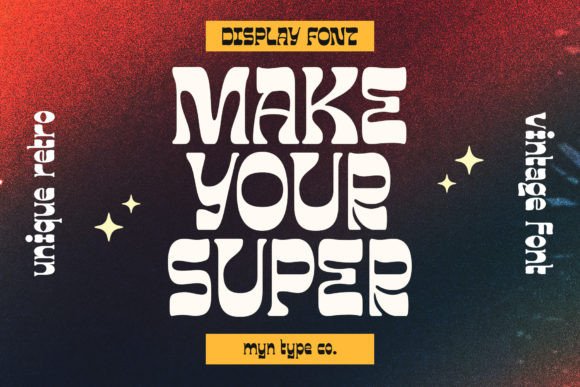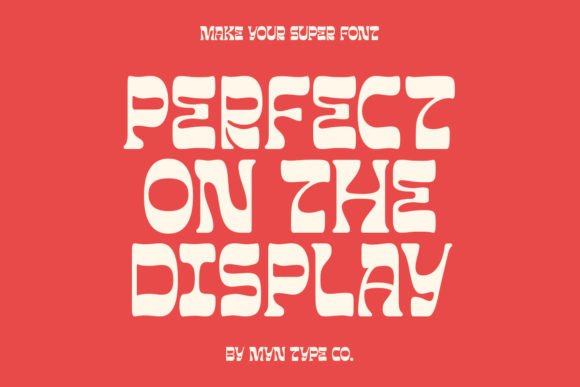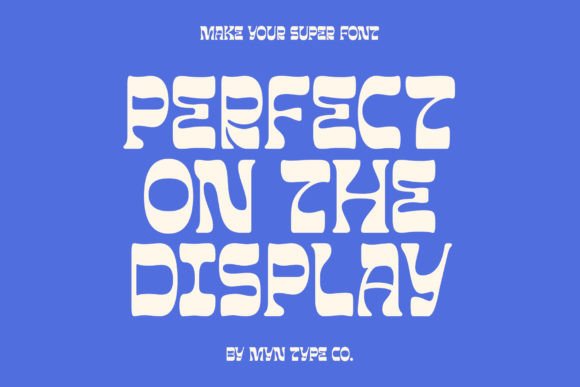
Introduction to Make Your Super Font
Make Your Super is a fun, sunny, retro display font that radiates joyful nostalgia.
With its bold, playful shapes and vibrant personality, it’s perfect for eye-catching posters, cheerful branding, and lively invitations Bring a touch of vintage sunshine to your designs with the delightful charm of Make Your Super.